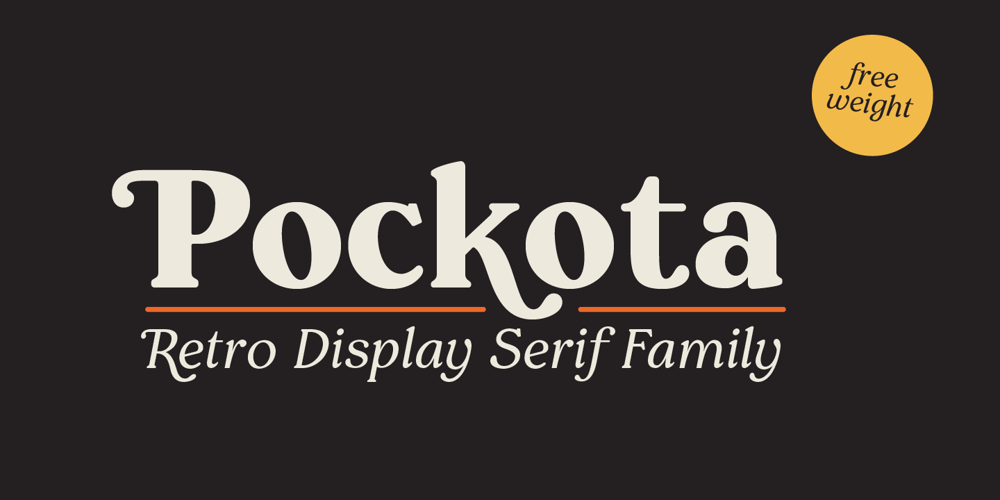
Pockota Font Family was designed by Nasir Udin and published by Nasir Udin. Pockota contains 10 styles and family package options. Pockota is a retro, soft display serif typeface with 12 fonts.Ranging from light to black with its matching italics, Pockota offers many possibilities to be applied in many graphic or editorial projects. Lighter weights are suitable for body text, and the heavier weights are perfect for striking headlines.Thanks to the OpenType features built in, many stylistic sets and swashes are fun to play with. And with the extended latin character set, so that Pockota supports 200+ latin-based languages. Pockota is a classic and timeless typeface, perfectly suitable for display purpose such as branding, editorial, headlines, and packaging.